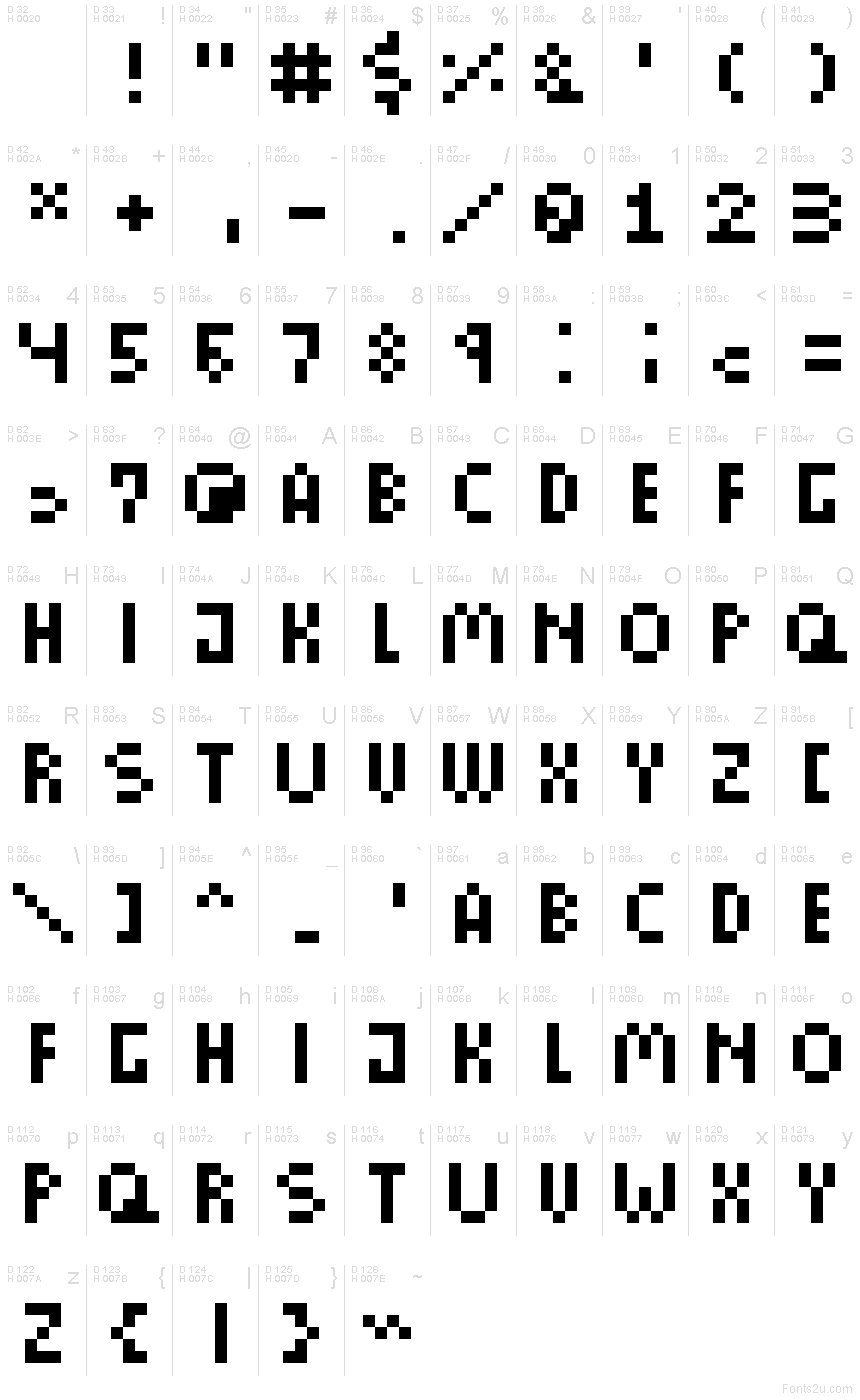
Pixel Regular
Pixel font is a digital-inspired bitmap typeface by krolesz94. With its pixelated, bold appearance and condensed letters, Pixel portrays an aesthetic look that combines blocky geometric shapes in each character. It has a retro appeal that seems to work nicely for building minimalist and modern designs.
Bring back the aesthetic of old video game references/panniers with this free font in your computer interface, website, app design, or typography poster. Use it for creative book covers, social media posts/presentation graphics (personal), or create unique logos/branding projects with it.